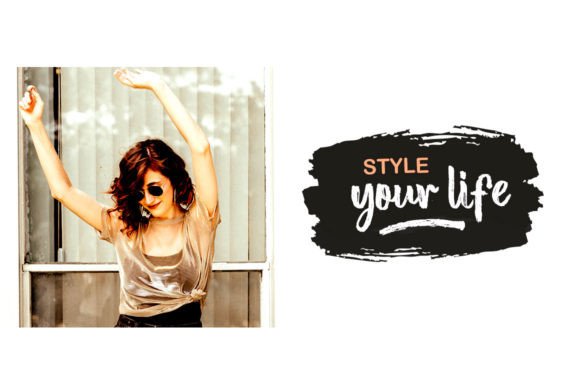
The Bortane Font: A Designer’s New Best Friend
I’ll never forget the struggle I faced while working on a project for a high-end client. The task was to create a luxurious brand identity, and I was determined to get it just right. But, as I scrolled through my font library, I found myself stuck. Nothing seemed to capture the perfect blend of elegance and modernity that I was looking for. That’s when I stumbled upon the Bortane font, and it quickly became my go-to choice. In this article, I’ll share my love for this exquisite handwritten font and provide you with a comprehensive guide on how to make the most of it.
An Honest Review of Bortane Font
What I Love About Bortane ✨
• 💫 Exquisite handwritten design with classy calligraphic influences
• 🌟 Contemporary and fresh feel that’s perfect for modern projects
• 🎨 Highly versatile and suitable for a wide range of design applications
• 📚 Excellent legibility, making it perfect for body text and headlines
• 👍 Well-crafted to ensure consistent quality and aesthetic appeal
• ⚠️ Some users might find the font a bit too ornate for very casual projects
• 🤔 Limited availability of certain OpenType features in older software
A Practical Guide to Using Bortane Font
The Backstory of Bortane Font
While the true story behind Bortane’s creation remains a mystery, it’s easy to imagine that it was crafted with passion and dedication. Perhaps the designer, inspired by the art of calligraphy, sought to create a font that would bring a touch of elegance to modern design. Whatever the inspiration, Bortane has undoubtedly become a masterpiece in its own right.
What makes Bortane font so special? Bortane’s unique blend of traditional calligraphy and modern design elements makes it a standout font that’s both elegant and fresh.
Is Bortane font suitable for body text? While Bortane is primarily designed for headlines and titles, its excellent legibility makes it suitable for body text in certain contexts, such as luxury publications or high-end branding materials.